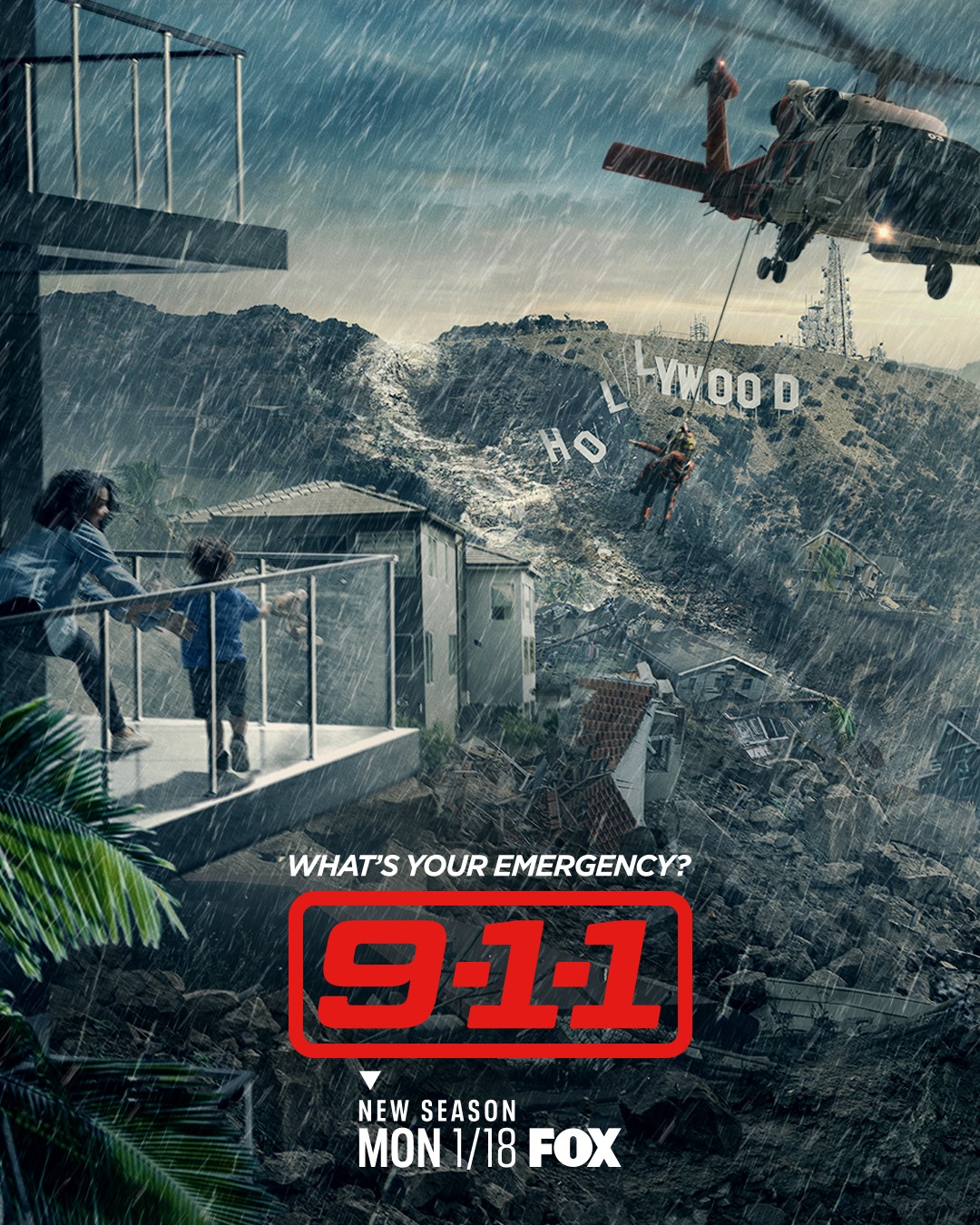
9-1-1 (TV series) Font
Action9–1–1 is an American procedural drama television series created by Ryan Murphy, Brad Falchuk, and Tim Minear for the Fox Broadcasting Company. The show follows the lives of first responders, including police officers, firefighters, and paramedics, as they respond to emergencies and deal with their personal lives.
The 9-1-1 title design uses Geom Graphic Bold Italic. Geom Graphic created by dharma Type, is a geometric sans serif with rounded corners. Gundam and Ideon, two Japanese robot animations from the 80s, inspired the font style.
The typeface is available in four weights with corresponding oblique styles. The text above the logo is set in Gotham Bold Italic from Hoefler&Co.